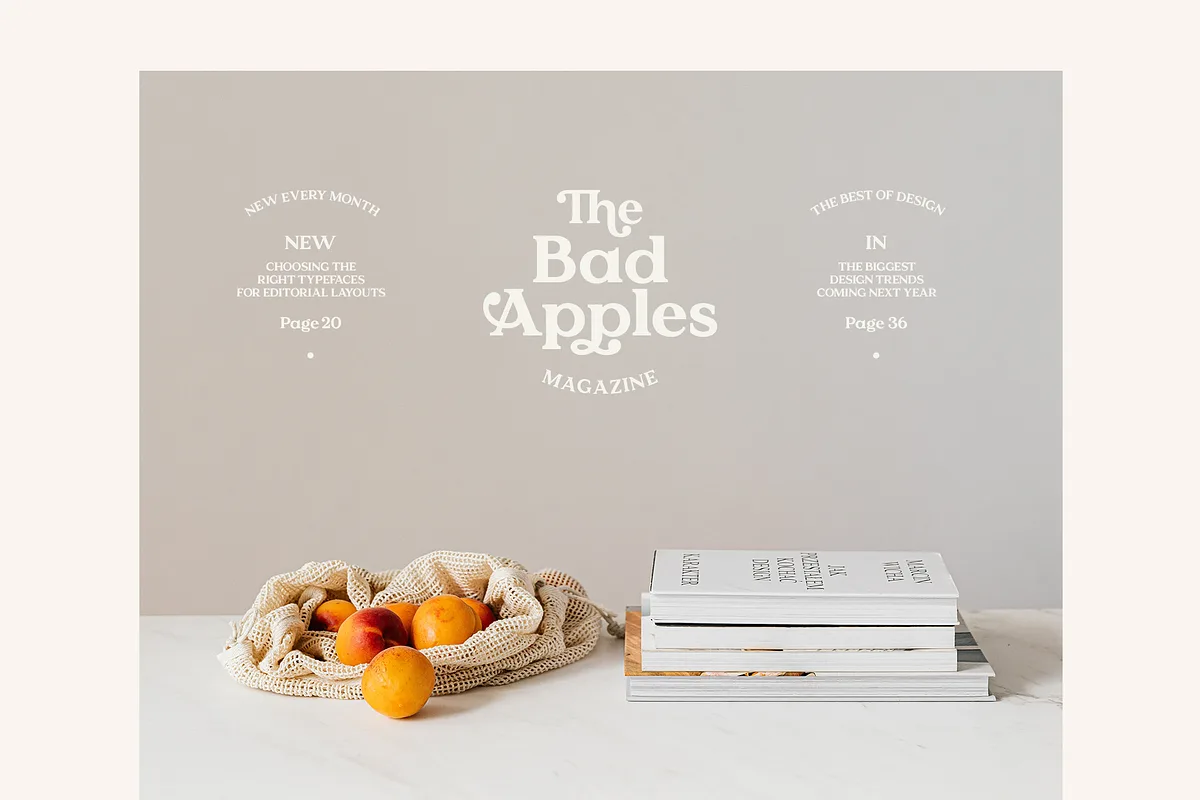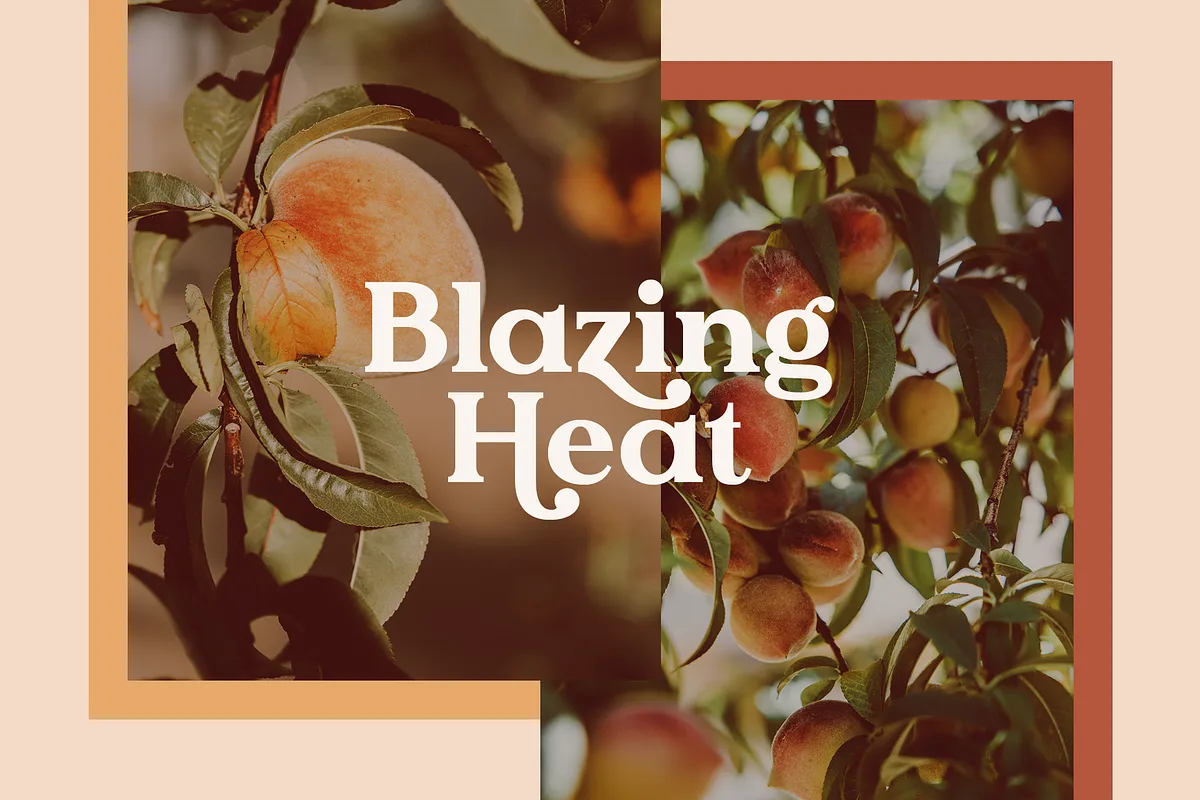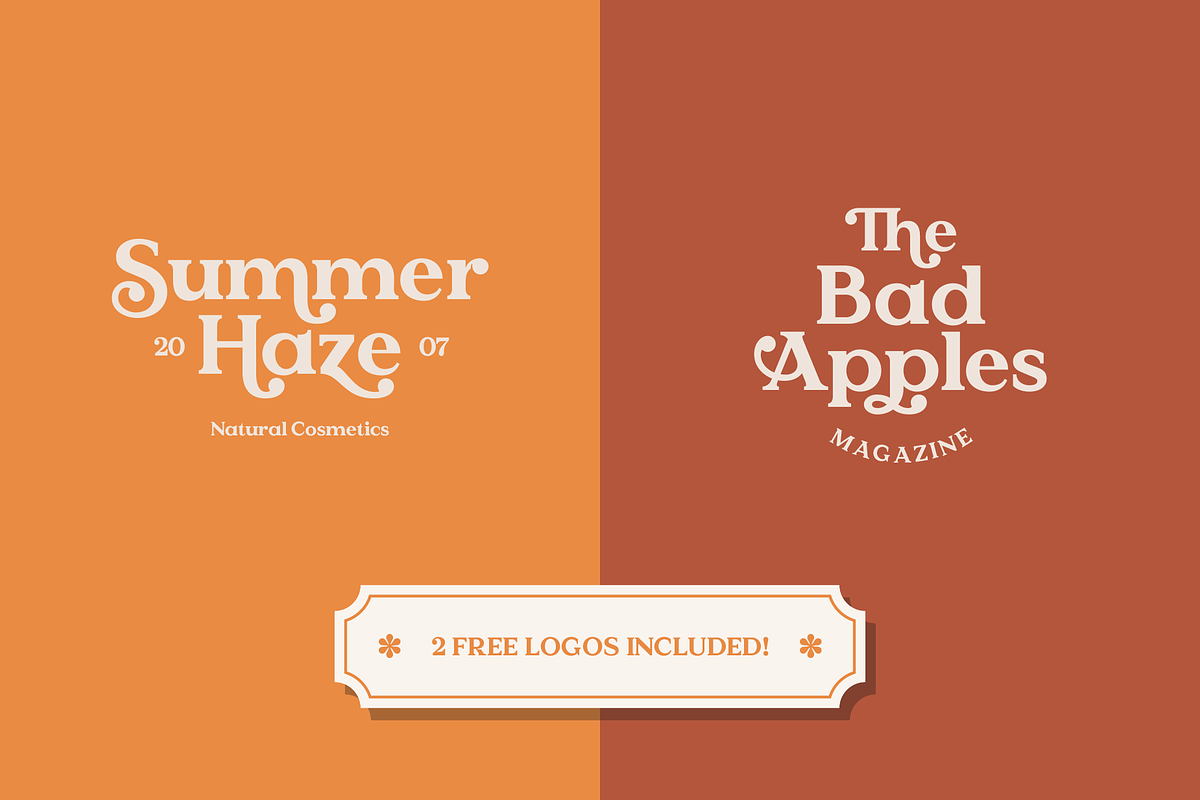
Apricosa is a delightful, modern take on a vintage font. It is a beautiful bold serif with alternate letters, vintage swashes, ligatures, and 2 free logo templates.
Packed with plenty of alternates and ligatures to bring it to life! Create stunning designs that are truly unique to your brand. Vary between light and heavy vintage look based on how many letters you alter.
Due to its large selection of alternate letters and ligatures, Apricosa is very versatile, covering a wide range of project types, from unique branding to bold magazine design, to vintage wedding invitations, and so much more.